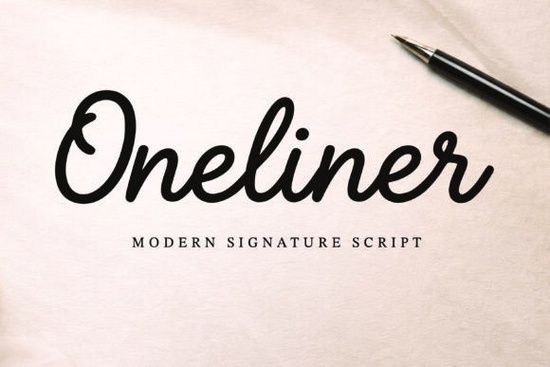
Oneliner Font is a versatile and stylish choice for anyone looking to add a personal touch to their design projects. This modern script font features smooth, flowing strokes that mimic the look of real handwriting, making it ideal for a wide range of creative applications. Whether you're working on branding, invitations, or social media graphics, Oneliner brings an elegant and professional feel to your work.
Designed with a clean monoline style, Oneliner balances authenticity with readability. It’s perfect for those who want the warmth of a handwritten font without sacrificing clarity. The font works well in both digital and print formats, offering flexibility for different design needs. Its natural flow makes it especially suitable for logos, wedding stationery, and editorial layouts where a refined aesthetic is essential.
What Makes Oneliner Font Stand Out?
One of the key strengths of Oneliner Font is its ability to blend simplicity with sophistication. Unlike more ornate script fonts, it maintains a minimalist approach while still delivering a unique personality. This makes it a great option for designers who want to keep their visuals clean but still add a sense of character.
The font also includes a variety of ligatures and alternate characters, allowing for more customization and a more authentic handcrafted look. These details can make a big difference when creating personalized designs, such as custom quotes or branded merchandise.
Best Uses for Oneliner Font
Oneliner Font is particularly useful for projects that require a personal and elegant touch. Here are some common applications:
- Branding and Logos: Use it to create a memorable and sophisticated brand identity.
- Wedding Invitations: Add a touch of class to your wedding stationery with its graceful script.
- Social Media Graphics: Enhance your posts with a stylish and readable font.
- Packaging Design: Make your product packaging stand out with a unique and professional look.
- Editorial Layouts: Ideal for headlines, captions, and other text elements in magazines or blogs.
Its adaptability means it can be used in both formal and casual settings, depending on how you apply it. Whether you're designing for a small business or a personal project, Oneliner offers a level of refinement that’s hard to match.
How to Get the Most Out of Oneliner Font
To make the most of this font, consider experimenting with different sizes and weights. While it’s highly readable in larger sizes, it can also work well in smaller text when paired with a complementary sans-serif font. This contrast can help draw attention to key elements in your design without overwhelming the viewer.
Final Thoughts
Oneliner Font is a valuable addition to any designer’s toolkit. Its balance of elegance and readability makes it suitable for a wide range of projects, from professional branding to personal creative endeavors. Whether you're a seasoned designer or just starting out, this font can help you achieve a polished and distinctive look.
If you're looking for a script font that feels natural yet refined, Oneliner is definitely worth considering. Its versatility and quality make it a reliable choice for anyone who wants to add a touch of sophistication to their designs.